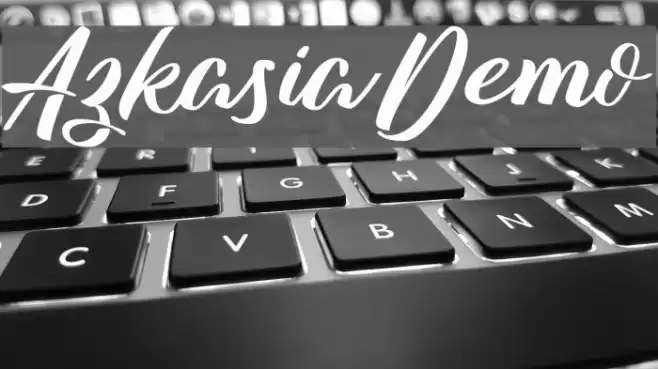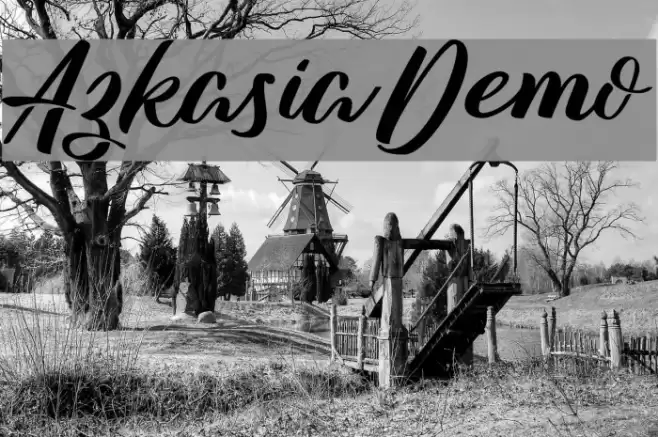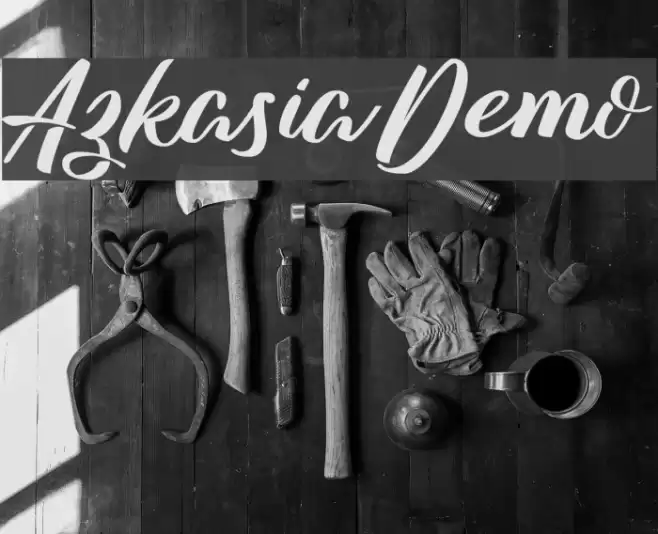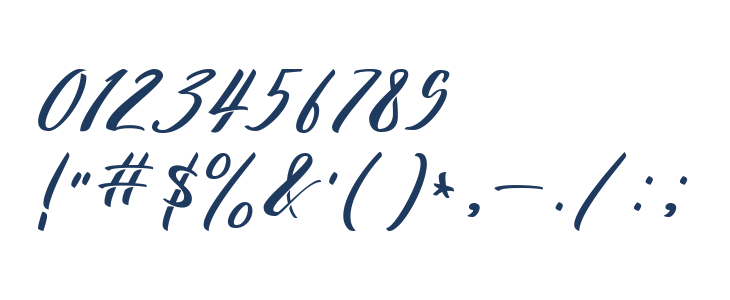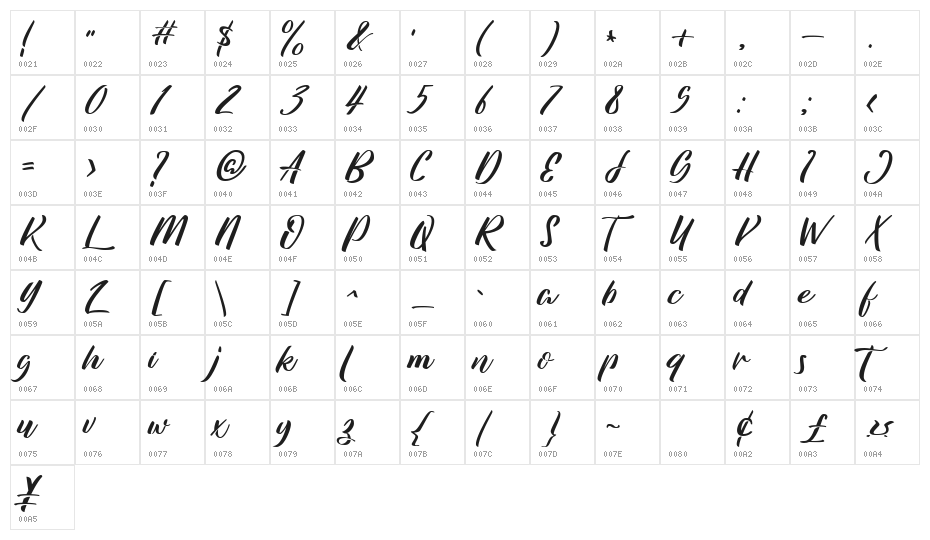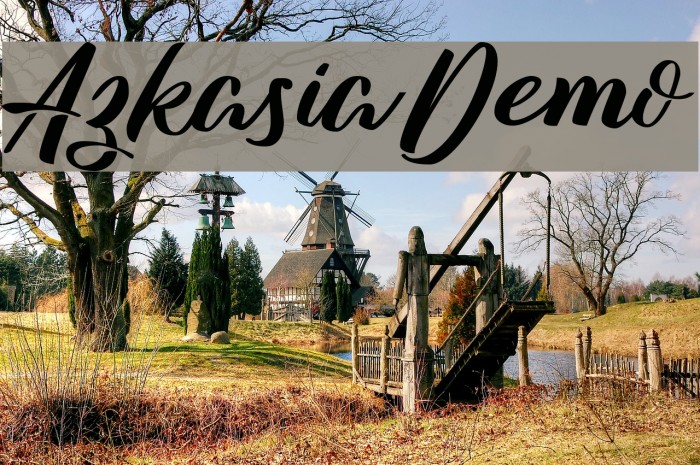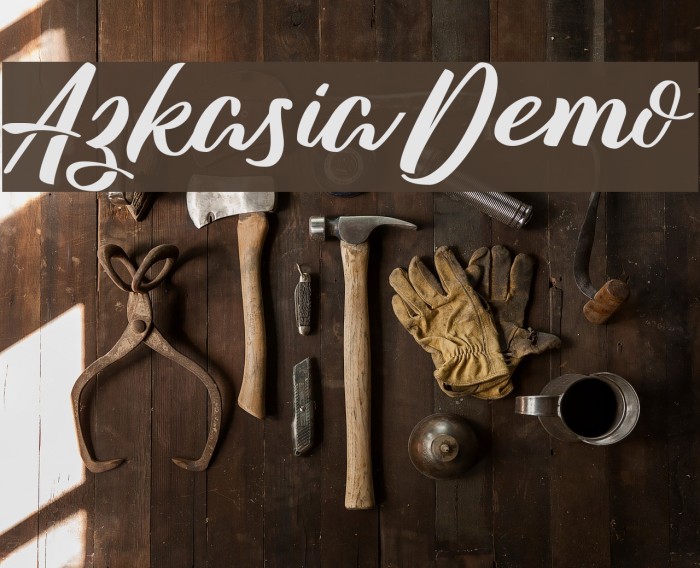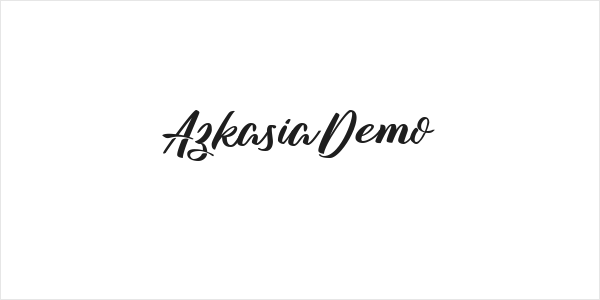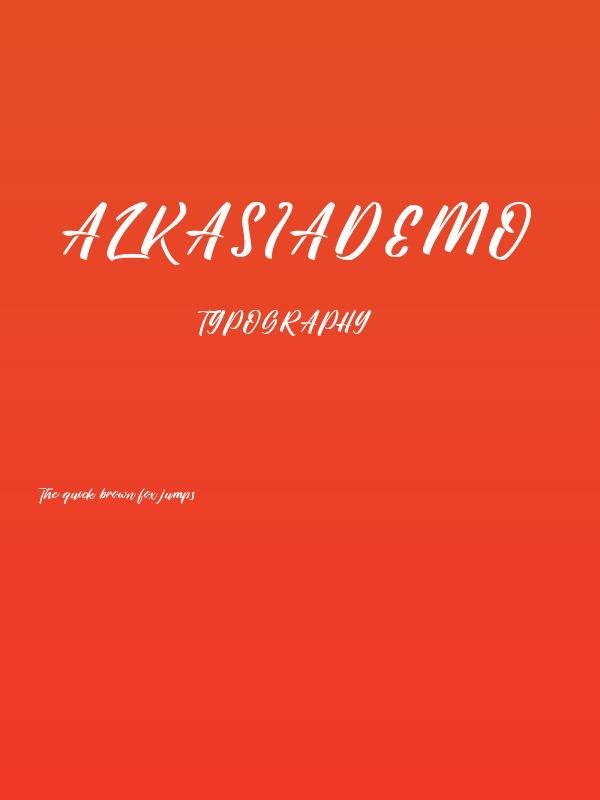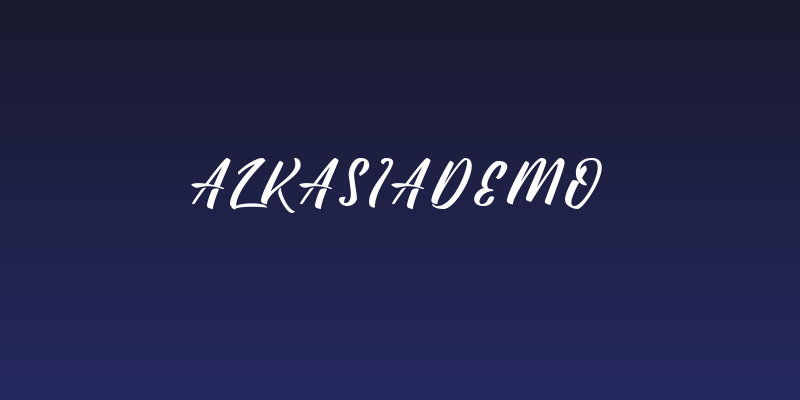
AzkasiaDemo Font
AzkasiaDemo Description
This font exhibits a dynamic and fluid script style, characterized by its elegant and flowing letterforms. The strokes are bold and expressive, with a slight slant that adds a sense of movement and grace. The uppercase letters are particularly striking, with sweeping curves and distinctive flourishes that give them a dramatic flair. The lowercase letters maintain a consistent style, with smooth connections and a harmonious rhythm. The numerals and special characters are crafted with the same attention to detail, ensuring a cohesive look across all glyphs. This font is perfect for projects that require a touch of sophistication and artistic flair.
A bold and expressive script font with elegant, flowing letterforms from Uncategorized fonts.
- Proposed Projects: Ideal for wedding invitations, branding, logo design, and elegant packaging.
- Use Case: Logos, Headlines, Invitations